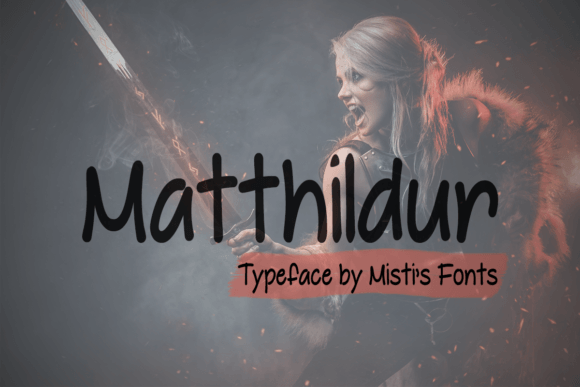
Introducing Matthildur Font - The Bold Cartoon-Style Typeface That Unleashes Your Creativity!
Get ready to embark on a whimsical adventure with Matthildur Font, the bold and captivating script typeface that will transform your design projects into captivating masterpieces. This remarkable font, crafted by the talented Misti, exudes a playful and expressive charm that will leave an unforgettable impression on your audience.
With its playful curves, energetic strokes, and captivating personality, Matthildur Font is the perfect choice for adding a touch of fun and excitement to your designs. Whether you're creating logos, shop banners, advertisements, or product labels, this remarkable font will elevate your work to new heights of creativity and engagement.
Explore the boundless possibilities of Matthildur Font and let your imagination soar. Its bold and distinctive style will make your designs stand out from the crowd, capturing the attention of your audience and leaving a lasting impact. Join the creative revolution and embrace the power of Matthildur Font today!